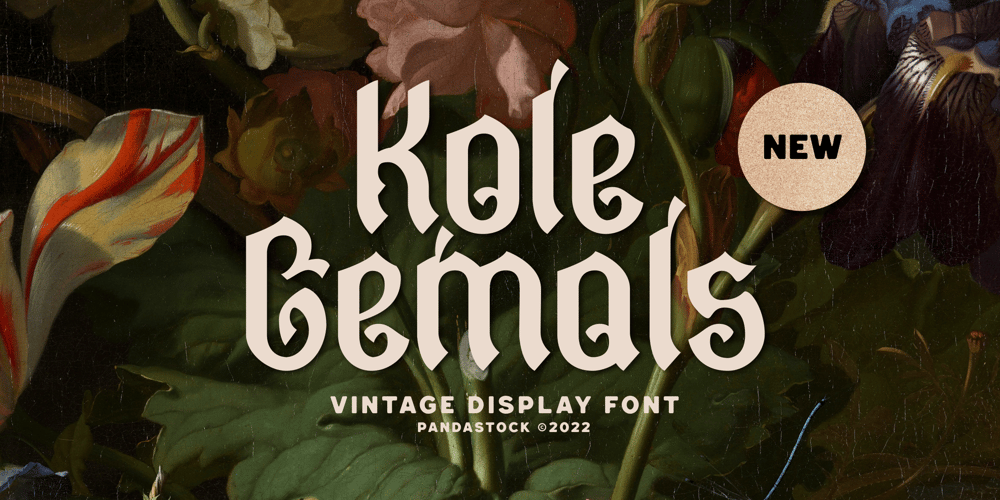
Kole Gemols
Kole Gemols font
Kole Gemols Font Family was designed by Aulia Savira Putri and published by Imoodev. Kole Gemols contains 1 styles and family package options. Kole gemols is vintage font with visual elegance, smooth curves, and beautiful ligatures clear, making your work look true and attractive.A very versatile font that works in both large and small sizes. This font is suitable for a wide variety of projects such as invitations, logos, branding, magazine, photography, card, product packaging, mugs, quotes, poster, labels, signatures, and more.Font which is perfect for all business sectors including personal projects, studio, corporate, creative agency, industrial, company, etc.